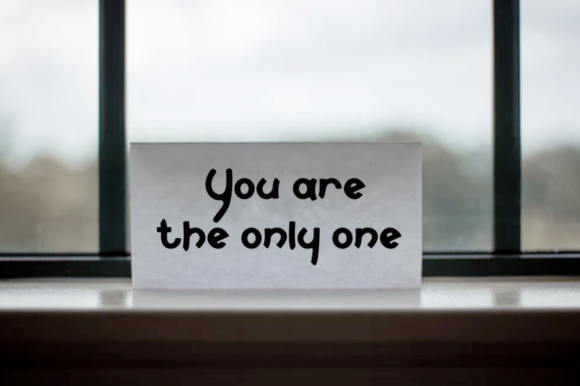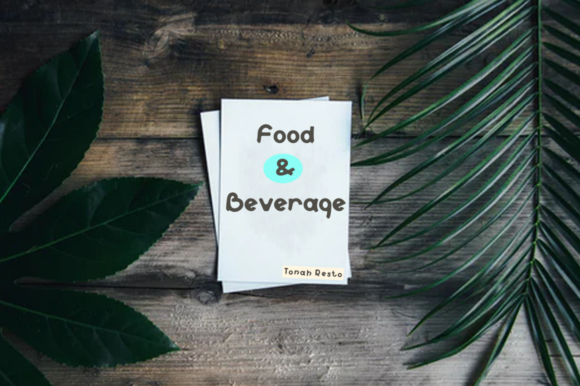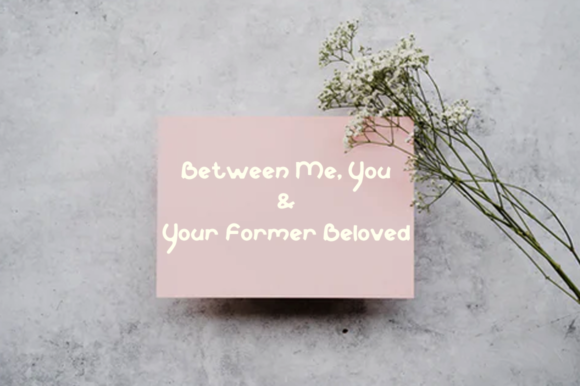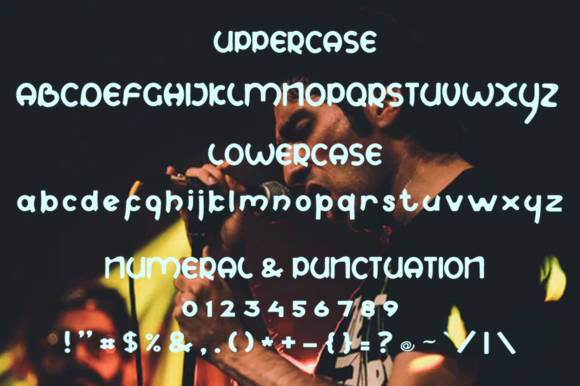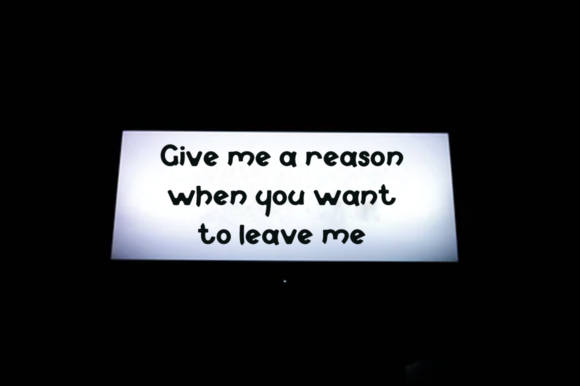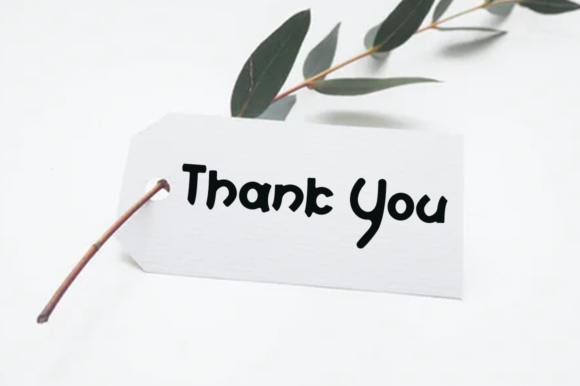
Introducing Effort Font: The Ultimate Display Font for Your Creative Projects
Are you tired of using the same old fonts in your designs? Look no further than Effort Font, a neat, thick lettered, and friendly display font that’s sure to elevate your creations. Whether you’re a designer, crafter, or simply someone who loves to dabble in creative projects, Effort Font is an incredibly valuable asset to have in your font library.
The Versatility of Effort Font
One of the best things about Effort Font is its versatility. No matter the topic or theme of your project, this font is sure to fit right in. Whether you’re working on a fun and playful design or a more serious and professional one, Effort Font’s friendly and approachable vibe makes it the perfect choice. Its thick letters and clean lines give it a sturdy and dependable feel, while its neat and organized appearance ensures that it always looks polished and put-together.
The Benefits of Using Effort Font
So why should you choose Effort Font for your next project? For starters, its unique and distinctive appearance is sure to help your design stand out from the crowd. In a world where so many designs look the same, Effort Font’s bold and eye-catching style is a breath of fresh air. Additionally, its friendly and approachable vibe makes it perfect for designs that need to convey a sense of warmth and approachability.
Who Can Benefit from Effort Font?
Effort Font is a valuable resource for anyone who works with fonts on a regular basis. This includes:
- Graphic designers who need a reliable and versatile font for their designs
- Crafters who want to add a personal touch to their DIY projects
- Small business owners who need a font that can help their brand stand out
- Anyone who loves to create and needs a font that can help them express themselves
How to Use Effort Font in Your Designs
- DIY projects and crafts
The Technical Details of Effort Font
For those who want to get into the nitty-gritty details, here are some technical specs about Effort Font:
- Font style: Display font
- Font weight: Thick and bold
- Lettering style: Neat and clean
| Font Name | Effort Font |
| Author | Gatra Std |
In conclusion, Effort Font is an incredibly valuable resource for anyone who works with fonts on a regular basis. Its unique and distinctive appearance, friendly and approachable vibe, and versatility make it the perfect choice for a wide range of design projects. Whether you’re a designer, crafter, or simply someone who loves to dabble in creative projects, Effort Font is sure to become a go-to font in your library.